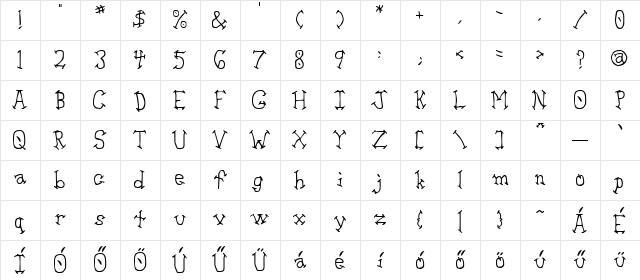
Aswell Hu Normal Free Font
Aswell Hu Normal
Design Context for Aswell Hu
Aswell Hu is a composed and adaptable typeface that performs quietly and consistently across a wide range of design contexts.